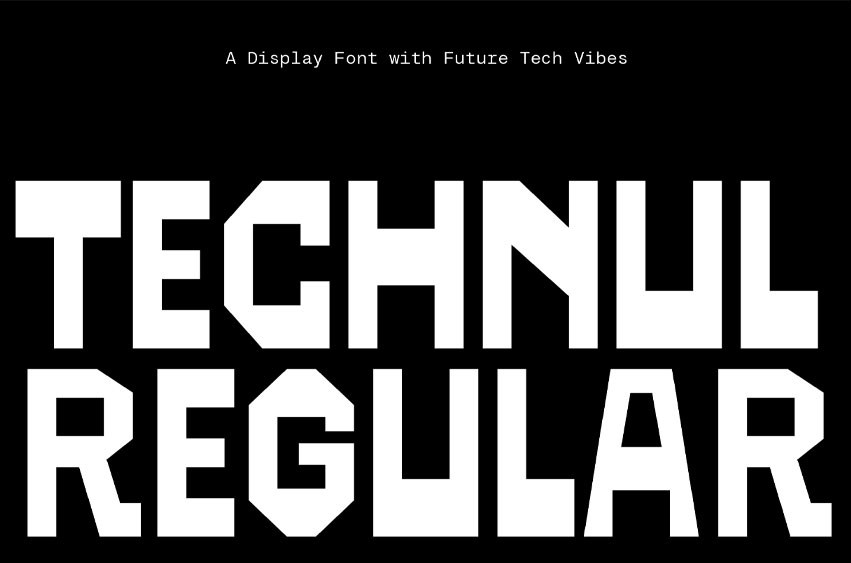
Technul Regular Font
Technul Regular Font is a cutting-edge display font that captures the essence of future-tech aesthetics, perfect for headlines, posters, and any bold statement. This experimental typeface stands out with its unique styles: the Regular style features sharp, rigid corners for a modern look. With multilingual support and OpenType features, Technul ensures your message reaches a global audience with advanced typographic options. Whether you’re crafting a futuristic brand identity or an eye-catching event poster, Technul provides the versatility and innovation you need to make an impact.